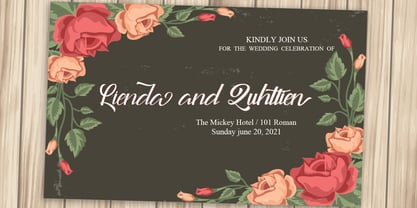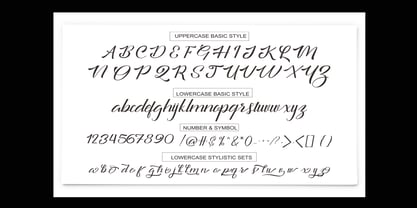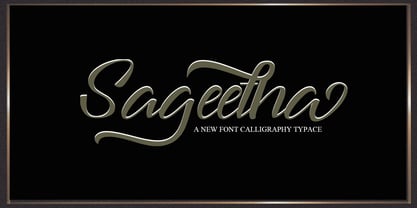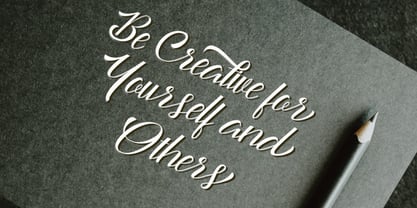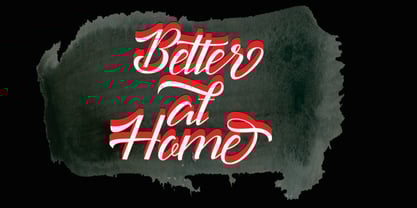
Sageetha Script
by Josstype
The Sageetha Script Font Family was designed by Teuku Zulfikar and published by Josstype. Sageetha Script contains 2 styles and family package options.
Sageetha Scrip is a handwritten typeface with classic root. a beautiful formal script and elegant touch. It works perfect in the world of weddings, logos, greeting cards, branding, print ads, quotes, signage, magazines etc.